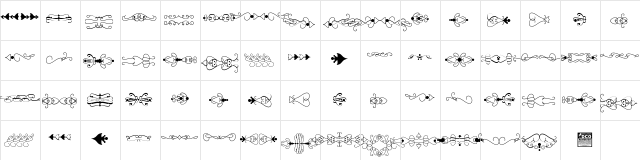
Ornamentis_PersonalUseOnly Regular
Design Context for Ornamentis_PersonalUseOnly Typeface
Ornamentis_PersonalUseOnly is built around its visual character rather than neutral utility — its distinctive forms are designed to make an impression at display sizes.
Font Pairing: Pair with a clean neutral sans-serif for body copy to let Ornamentis_PersonalUseOnly's character lead without overwhelming the composition.
Pro Tip: Use Ornamentis_PersonalUseOnly exclusively at display sizes — it was designed to be seen, not read at length. Let a neutral companion handle body copy.